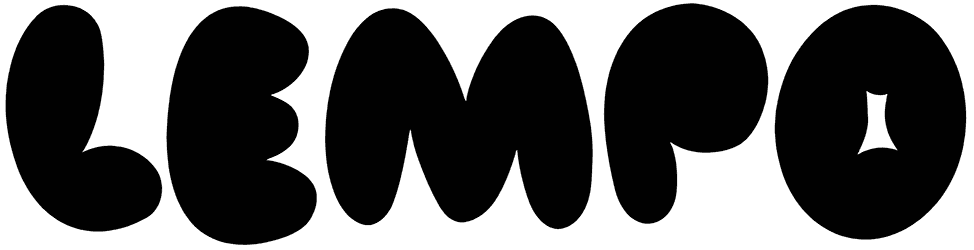
Lempo Font
The cartoonish letters of Lempo are all that your text needs before it can attract maximum attention. Usually, balloon fonts like this can lend you a hand when you’re working on kindergarten posters, amusement park websi…
The cartoonish letters of Lempo are all that your text needs before it can attract maximum attention. Usually, balloon fonts like this can lend you a hand when you’re working on kindergarten posters, amusement park website titles, and logos for different brands of toys.
That’s only a few examples of Lempo being useful. There’s no reason this fat font shouldn’t be in your next fun project unless you know for sure that you’re going to need some lowercase letters too.